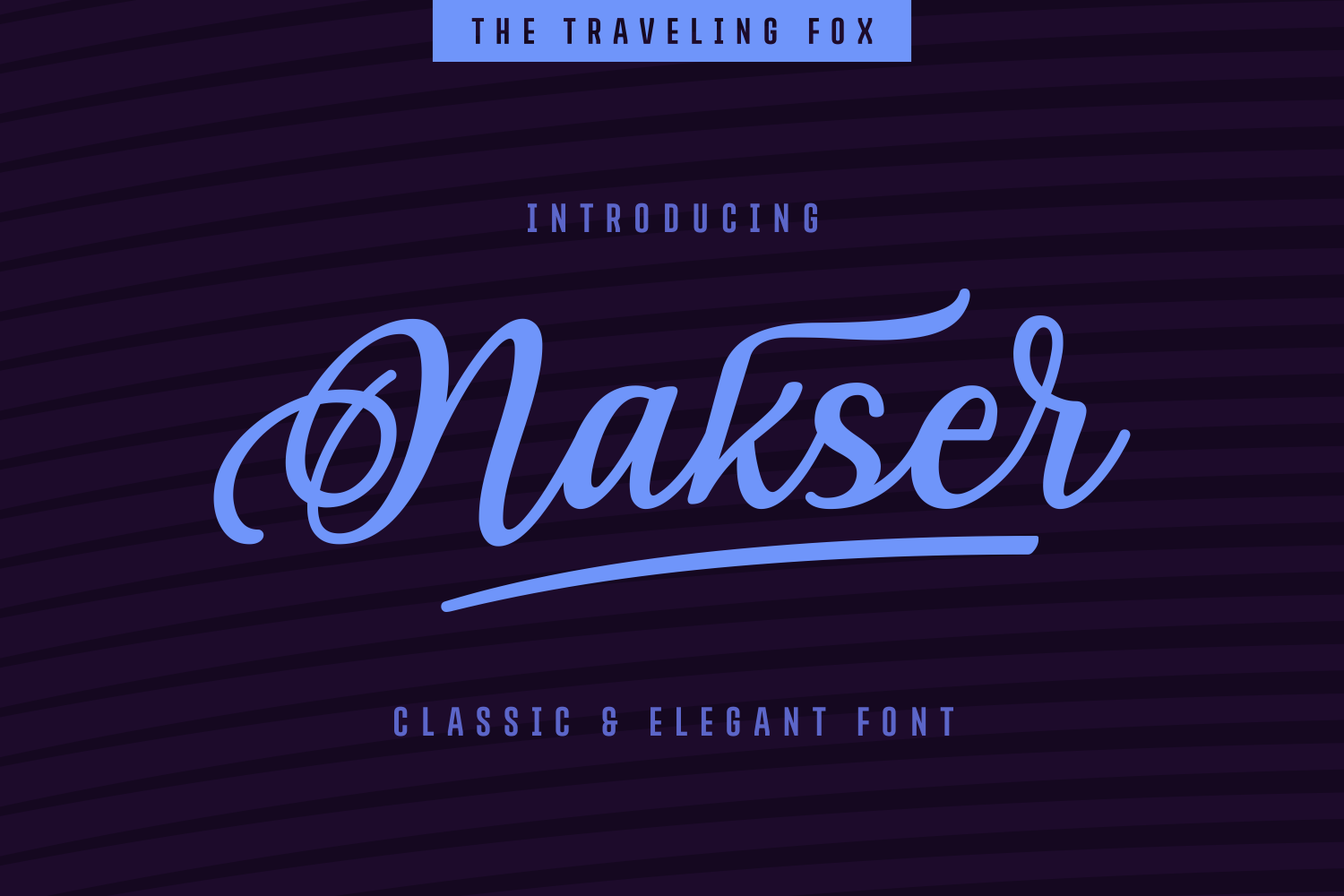
Nakser - Handwritten Font
Nakser is a swirly decorative font, crafted with meticulous attention to detail. This script is perfect for displays and headlines, and reads well in body text; this is a truly versatile font.